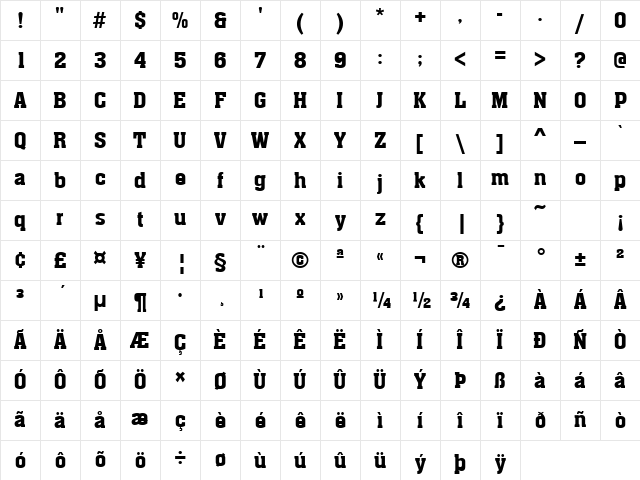
Complete Wagner Regular glyph index. Displaying only characters natively supported by Wagner Regular font.
Wagner is a composed and adaptable typeface that performs quietly and consistently across a wide range of design contexts.